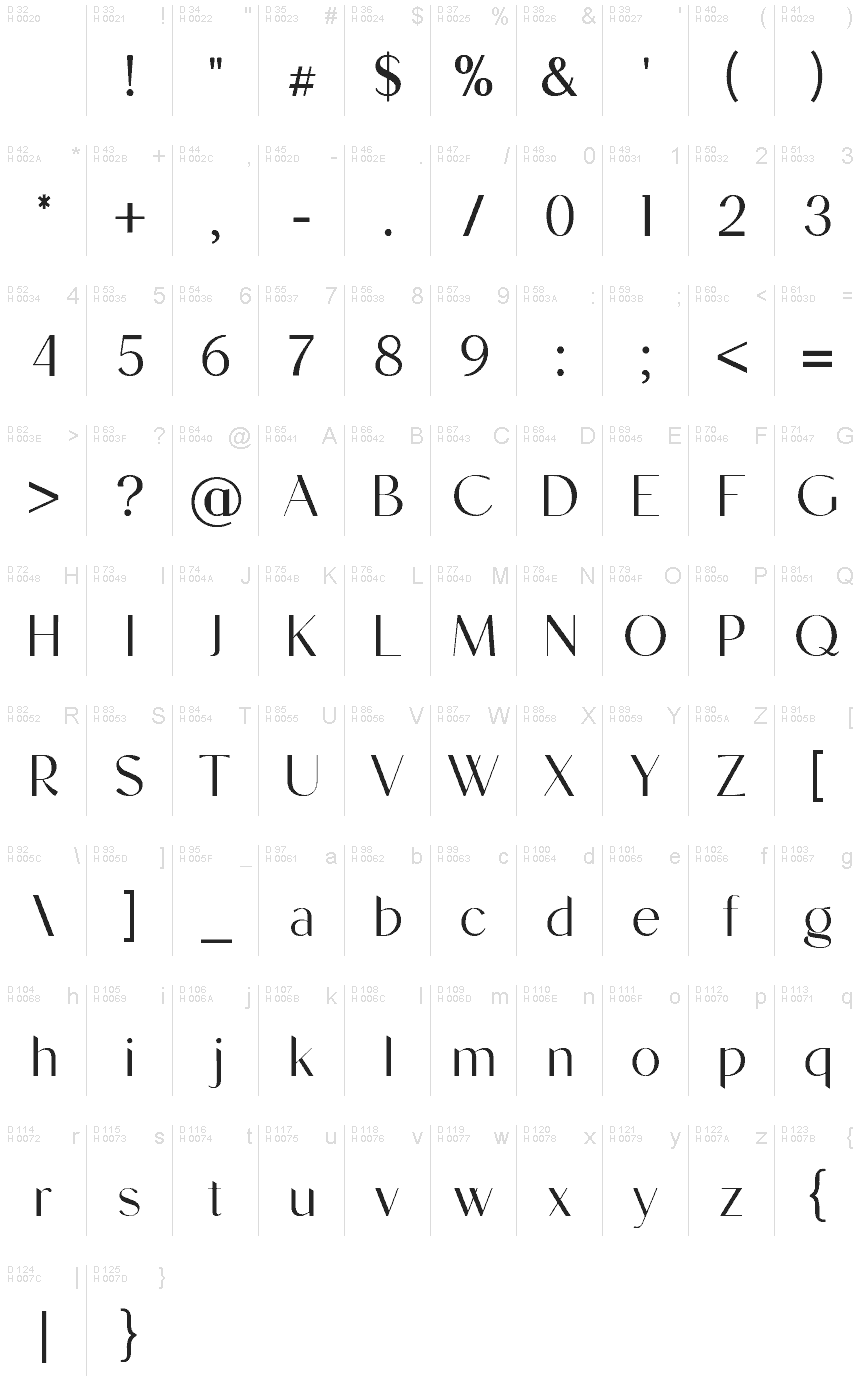
AlonaRavigent
Alona Ravigent font by UI Creative is an elegant and modern sans serif font that harmoniously blends sophistication with contemporary flair. Notable letter elements like curves, stems, and descenders combined with lightly rounded corners give this font its highly appealing look. Alona Ravigent is available in regular, thin, and bold weights—styles that render it highly adaptable to your many projects.
Use Alona for branding needs like product packaging, logo design, or uniform modeling; it would also look great on a coffee shop sign. Make Alona Ravigent your next go-to typeface for magazines, websites, social media posts, and advertising campaigns to add a touch of elegance to each project.